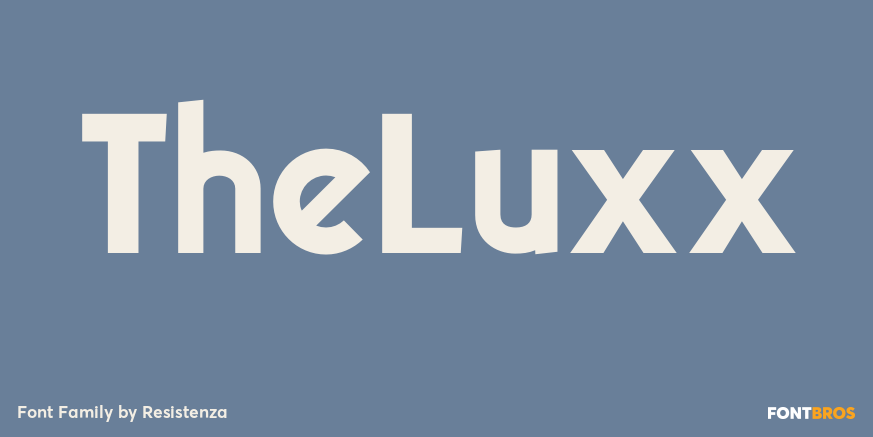
TheLuxx
About TheLuxx
The Luxx font was born in 2010 and in the 2013 has been redesigned. Luxx is based on a style of lettering often seen on Italian art deco posters and advertising of the 1930s. This font is very modern, and is inspired by the \’velocit